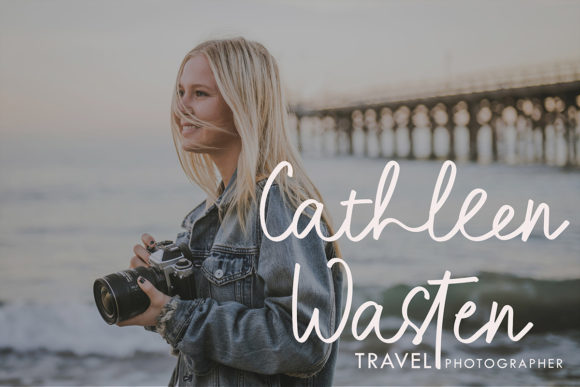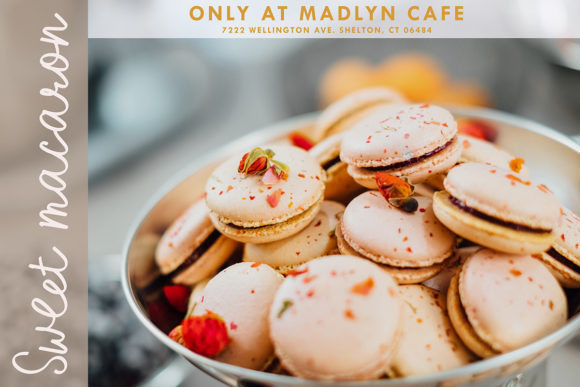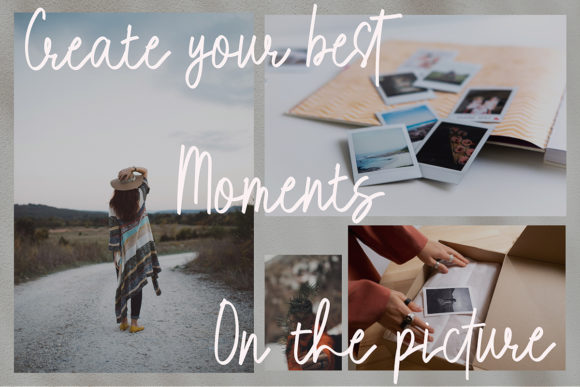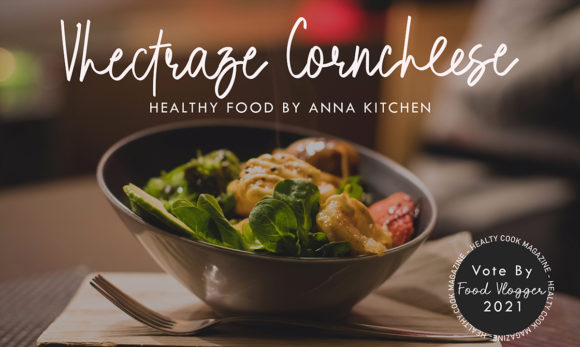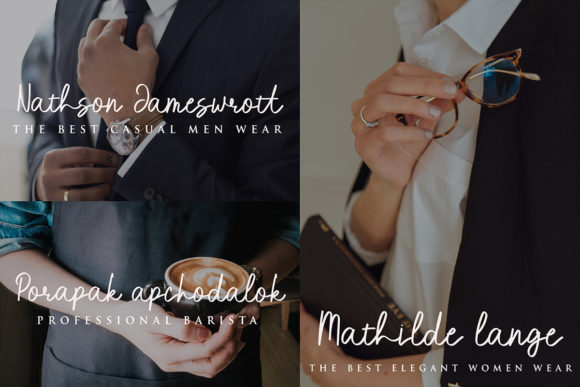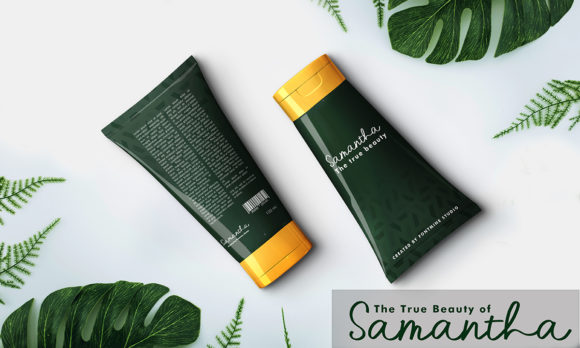
Introducing Almareesha Font: The Perfect Blend of Sophistication and Class
In the world of typography, fonts play a crucial role in conveying the tone and personality of a brand or design. For designers and crafters, finding the right font can make all the difference in creating visually stunning and effective designs. If you’re on the hunt for a font that exudes both sophistication and class, look no further than Almareesha Font. In this article, we’ll dive into the features and benefits of Almareesha Font, and explore how it can elevate your designs to the next level.
What is Almareesha Font?
Almareesha Font is a casual script font that strikes the perfect balance between sophistication and elegance. Its unique and flowing design makes it an ideal choice for a wide range of applications, from photography and watermarks to social media posts, advertising, logos, and branding. With Almareesha Font, you can add a touch of refinement and luxury to your designs, making them stand out from the crowd.
Key Features of Almareesha Font
- Unique and Elegant Design: Almareesha Font boasts a distinctive and stylish design that is sure to capture attention. Its flowing lines and curves create a sense of movement and fluidity, making it perfect for designs that require a touch of sophistication.
- Versatile: This font is incredibly versatile and can be used for a wide range of applications, including photography, watermarks, social media posts, advertising, logos, branding, invitations, product designs, and more.
- Easy to Read: Despite its elegant design, Almareesha Font is easy to read, making it perfect for body text and captions.
- Scalable: Almareesha Font is highly scalable, ensuring that it looks great in various sizes and resolutions.
Use Cases for Almareesha Font
Almareesha Font is an incredibly versatile font that can be used in a variety of contexts. Here are some use cases to get you started:
- Photography: Add a touch of elegance to your photos with Almareesha Font. Use it as a watermark or overlay to create a sophisticated and professional look.
- Social Media Posts: Make your social media posts stand out with Almareesha Font. Use it to create eye-catching captions and graphics that will grab the attention of your followers.
- Advertising: Almareesha Font is perfect for advertising materials, such as brochures, flyers, and posters. Its elegant design will help your brand stand out from the competition.
- Logos and Branding: Create a lasting impression with Almareesha Font. Use it to create a logo or brand identity that exudes sophistication and class.
- Invitations: Make your invitations special with Almareesha Font. Use it to create beautiful and elegant invitations for weddings, parties, and other events.
- Product Designs: Almareesha Font is perfect for product designs, such as packaging, labels, and business cards. Its unique design will help your products stand out on store shelves.
Tips for Using Almareesha Font
To get the most out of Almareesha Font, here are some tips to keep in mind:
- Pair it with Other Fonts: Almareesha Font pairs well with other fonts, such as sans-serif fonts. Experiment with different combinations to find the perfect look for your design.
- Use it in Moderation: While Almareesha Font is elegant and sophisticated, it’s essential to use it in moderation. Too much of a good thing can be overwhelming, so balance it with other design elements.
- Experiment with Colors: Almareesha Font looks great in a variety of colors. Experiment with different colors to find the perfect match for your design.
Almareesha Font is a versatile and elegant font that is perfect for designers and crafters looking to add a touch of sophistication to their designs. With its unique design, versatility, and ease of use, Almareesha Font is an excellent choice for a wide range of applications. Whether you’re creating photography watermarks, social media posts, advertising materials, logos, or product designs, Almareesha Font is sure to elevate your designs to the next level.